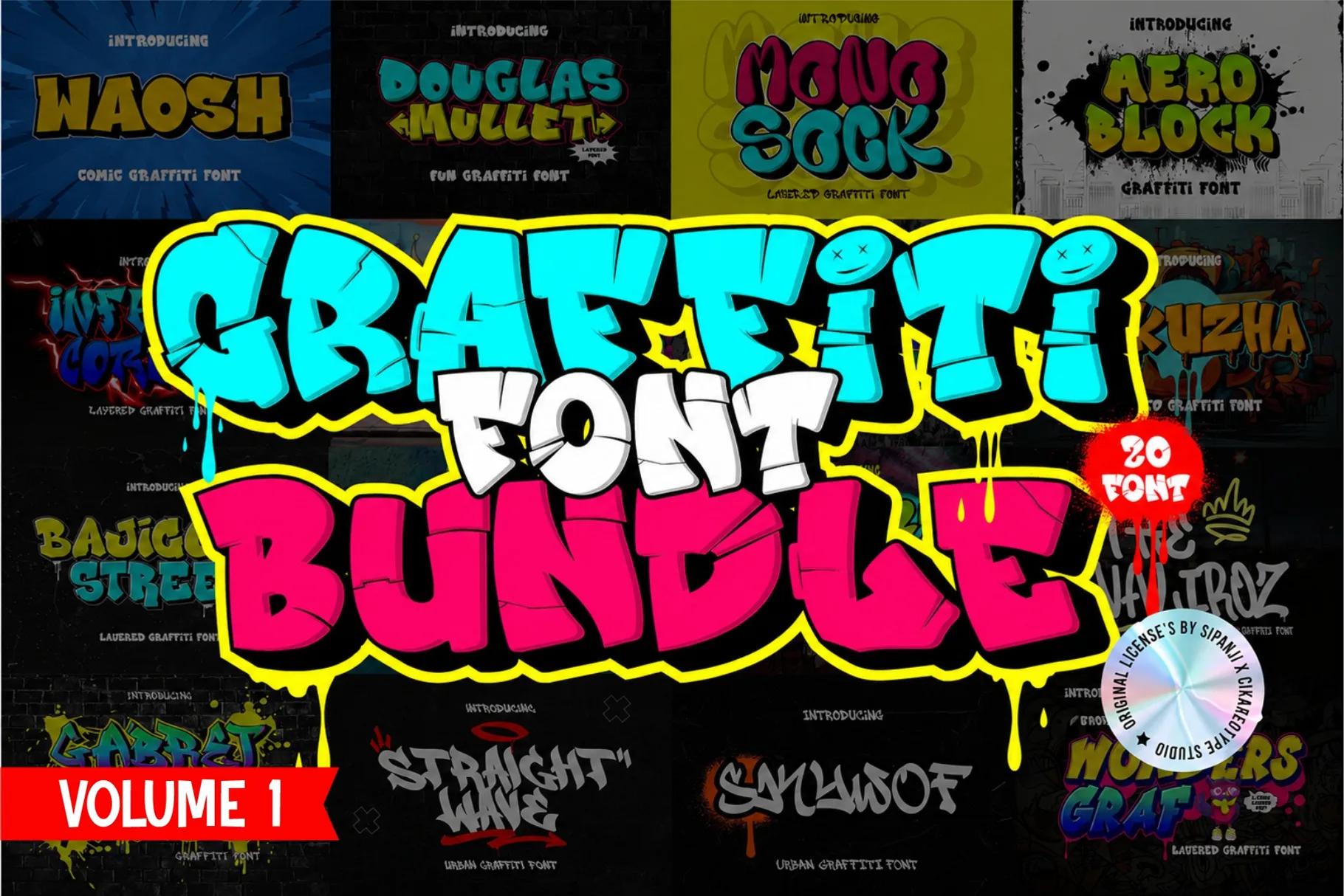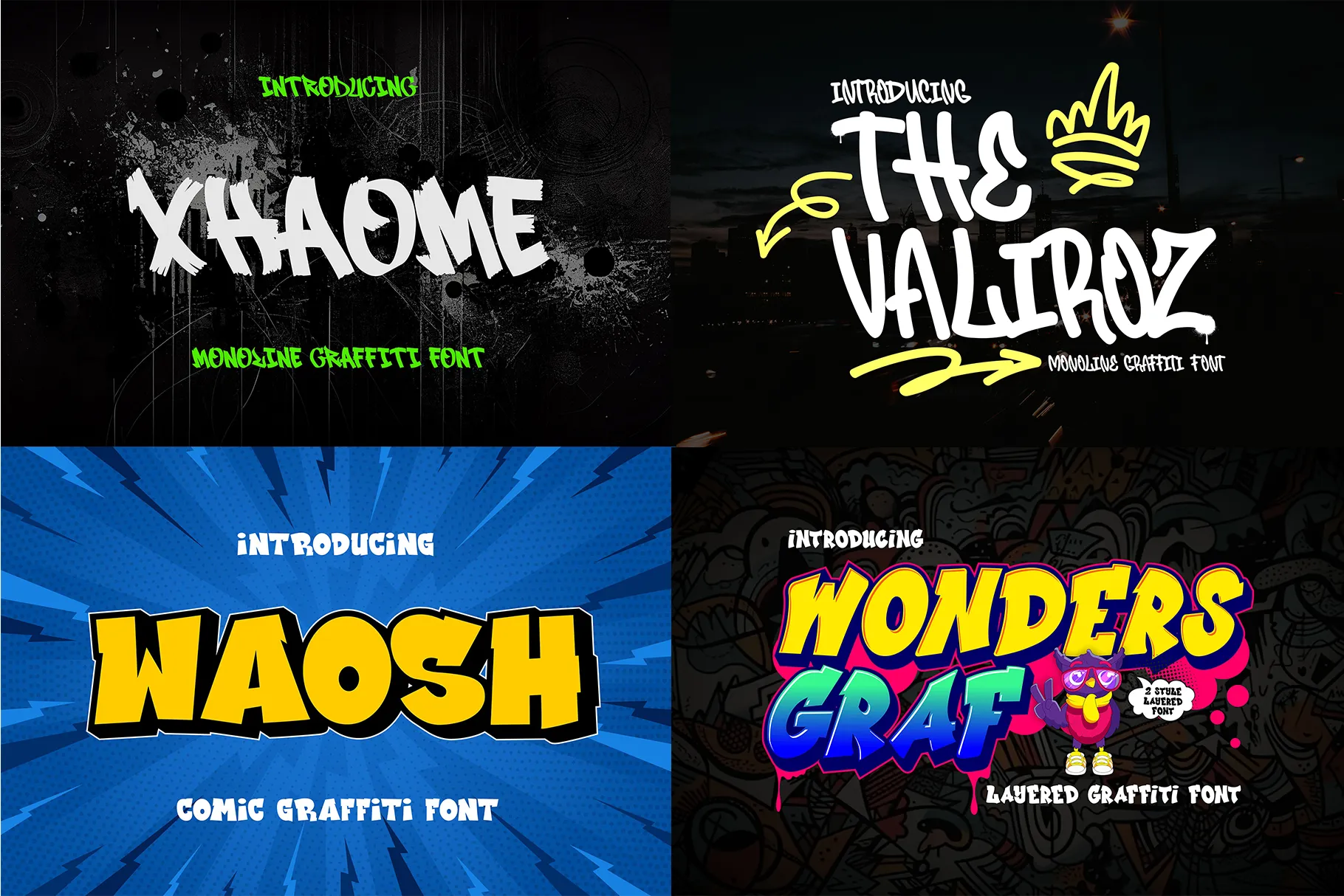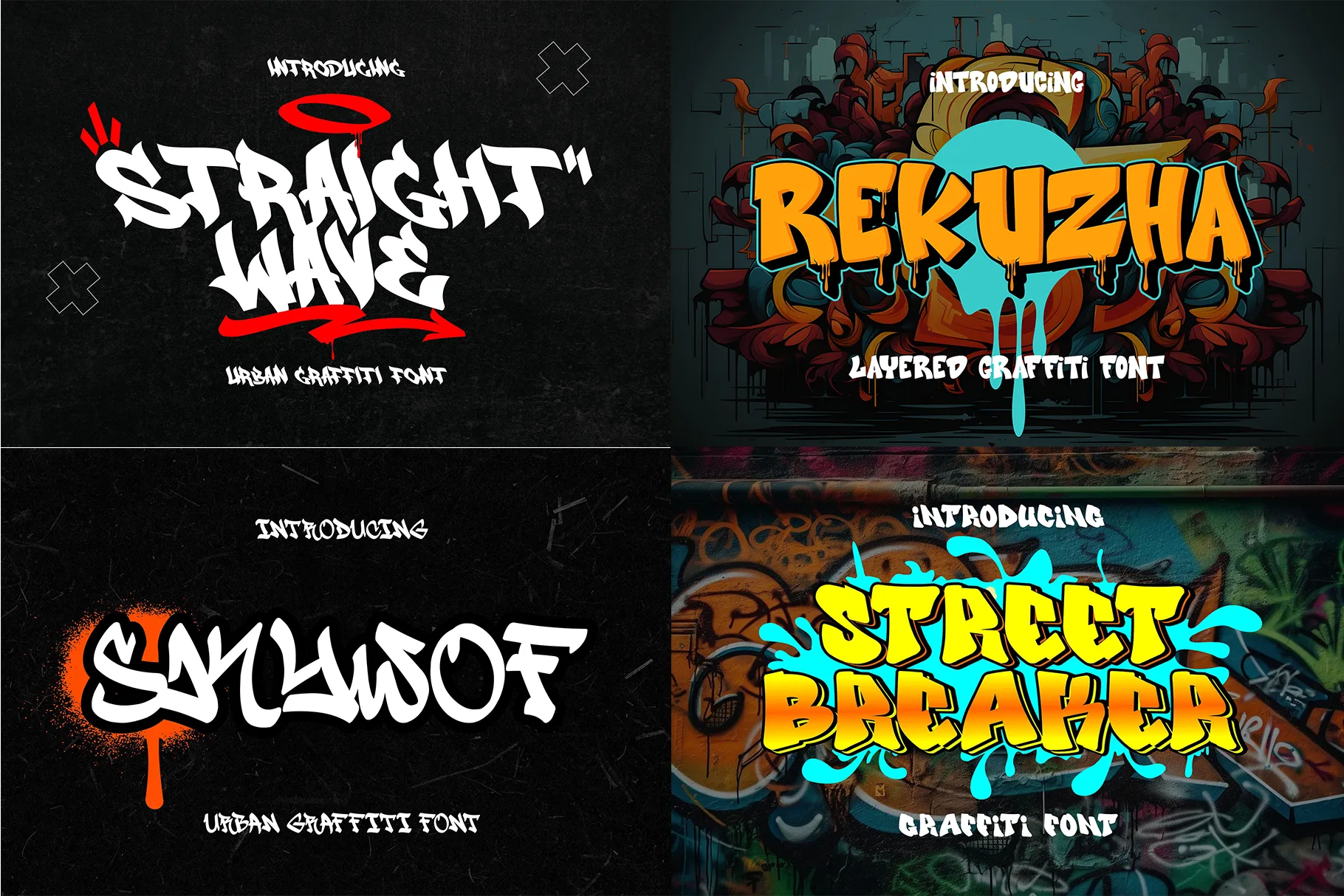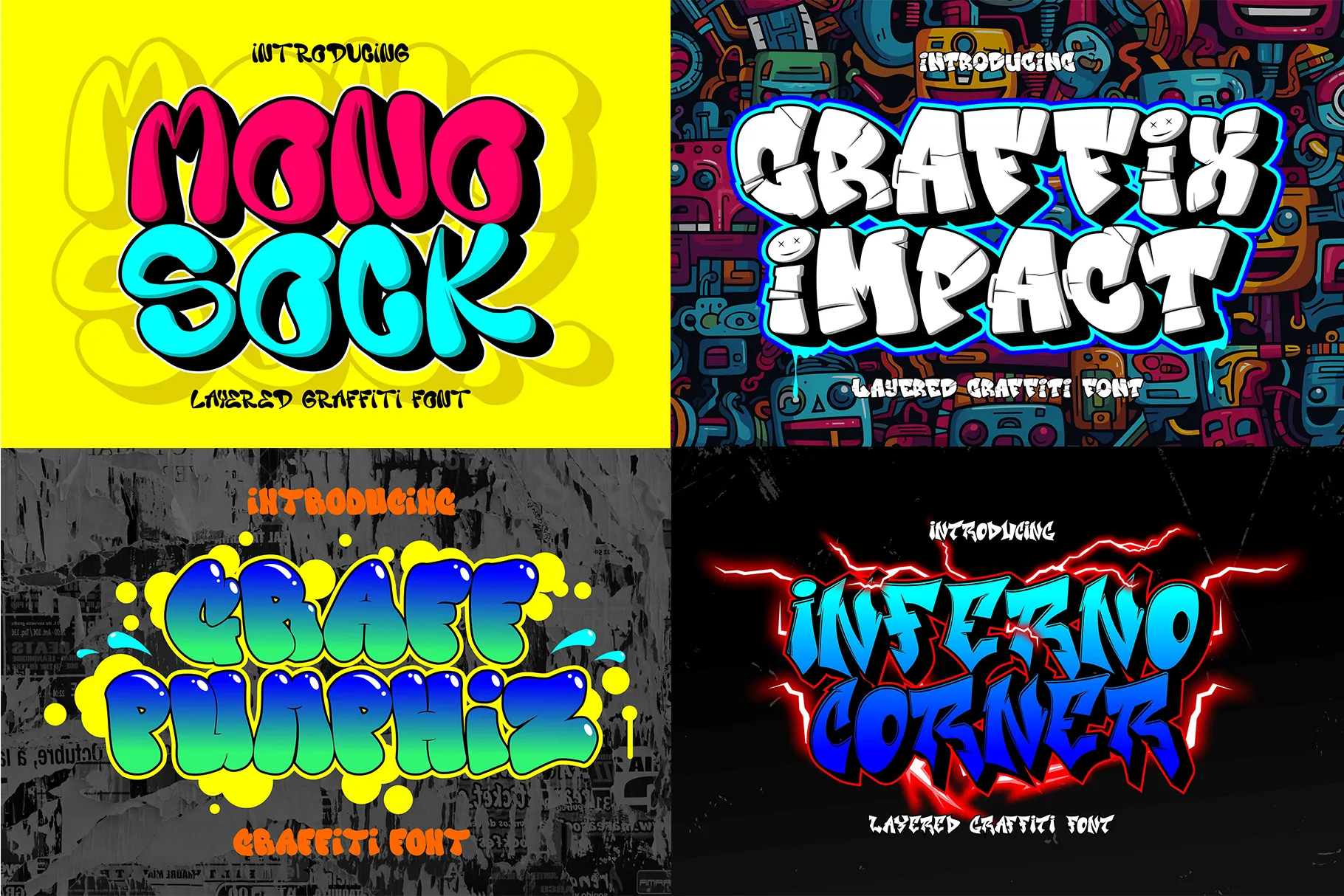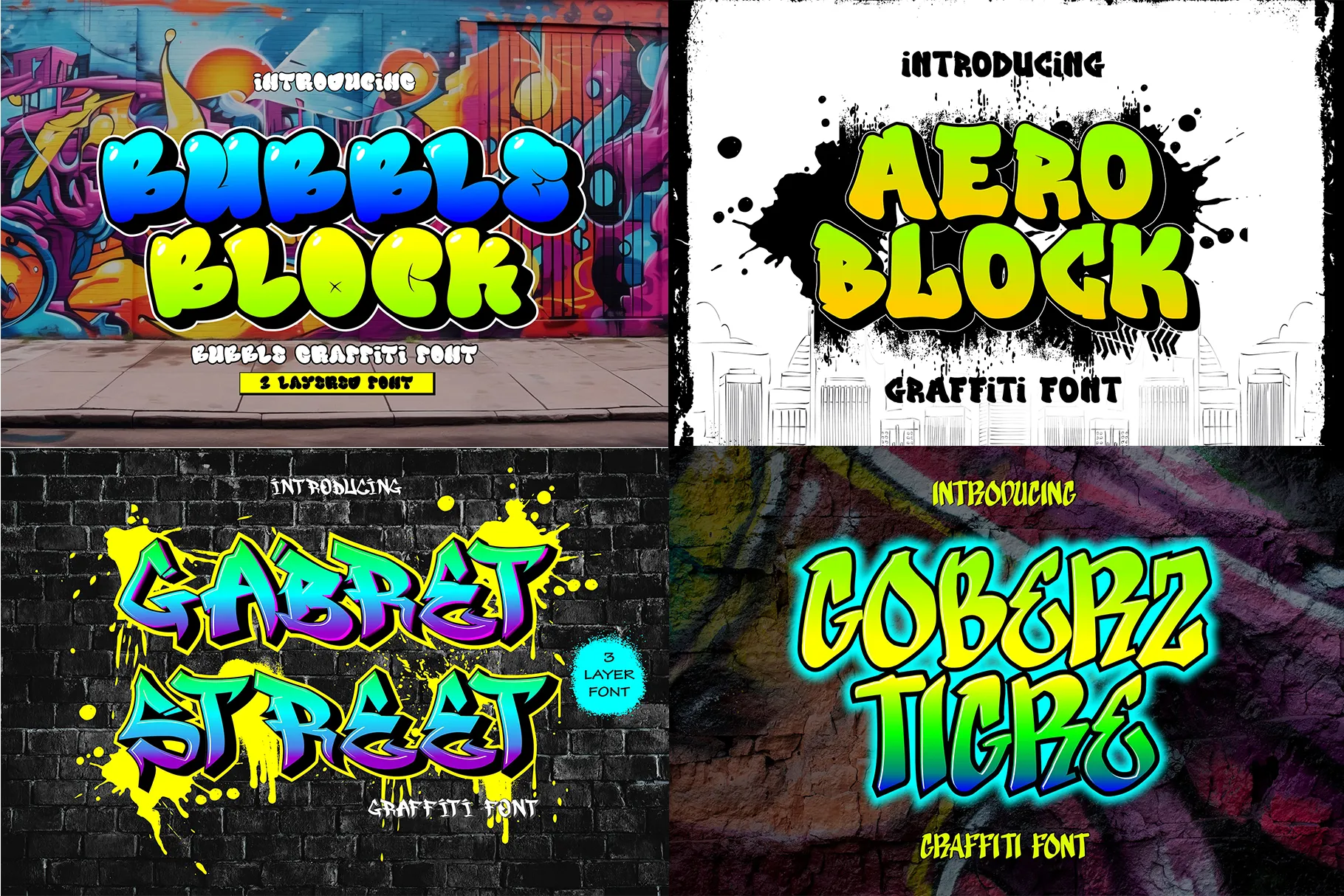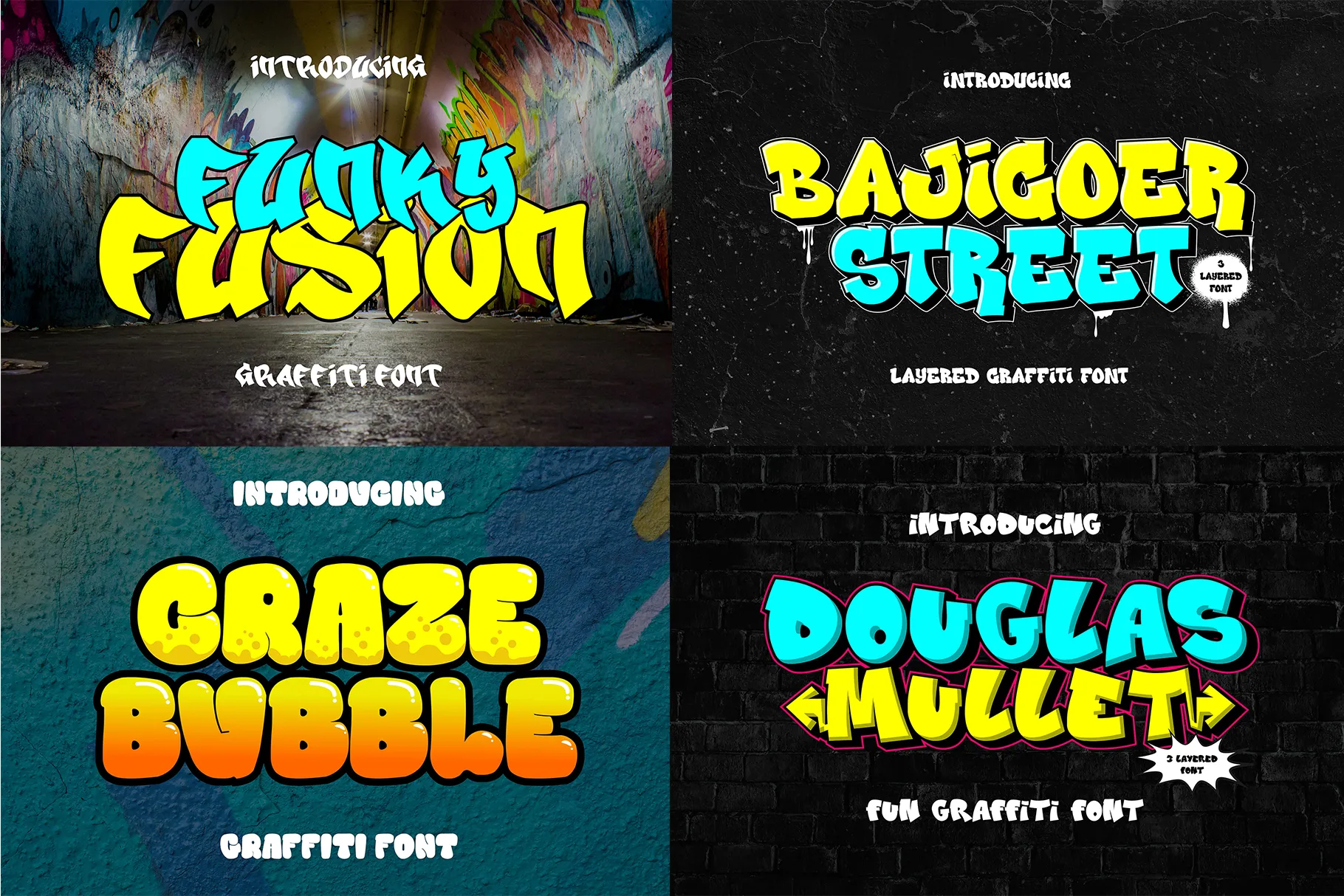
About Graffiti Font Bundle Volume 1
Graffiti Font Bundle Volume 1 – Premium Urban Typography Collection
Take your creative projects to the next level with Graffiti Font Bundle Volume 1, a powerful collection of bold, expressive, and versatile graffiti fonts created for modern designers. This graffiti font bundle brings together a wide variety of urban lettering styles, from aggressive street typography and bold display fonts to playful bubble lettering and dynamic graffiti-inspired designs. Whether you are working on branding, apparel, posters, logos, or social media graphics, this urban font bundle gives you an extensive collection of professional fonts in one powerful package.
Designed for creators who love street culture and expressive typography, Graffiti Font Bundle Volume 1 is a must-have graffiti font collection for designers, illustrators, apparel creators, and branding professionals. Each font brings its own visual personality, allowing you to explore multiple styles without purchasing individual fonts separately. With this graffiti font bundle, you can create bold and memorable typography for almost any creative project.
A Complete Graffiti Font Bundle for Creative Designers
This graffiti font bundle is carefully curated to provide a broad selection of urban typography styles. Every graffiti font included in Volume 1 offers a unique approach to street-inspired lettering, helping you build expressive and eye-catching designs. From strong block lettering to energetic hand-drawn forms, this urban font collection gives you the creative flexibility to match the right typography with the right project.
The variety included in this graffiti font bundle makes it perfect for designers who work across different industries. You can use bold graffiti fonts for streetwear graphics, playful fonts for invitations, expressive lettering for inspirational quotes, or powerful display typography for posters and headlines. With so many styles available, Graffiti Font Bundle Volume 1 becomes a valuable addition to any professional font library.
Font Included in Graffiti Font Bundle Volume 1
This graffiti font collection includes a powerful selection of urban and display fonts. The included graffiti fonts are:
- Aeroblock
- Gabret Street
- Goberz Tigre
- Bajigoer Street
- Craze Bubble
- Douglas Mullet
- Funky Fusion
- Graffix Impact
- Inferno Corner
- Monosock
- Rekuzha
- Skywoff
- Street Breaker
- Straight Wave
- The Valirouz
- Waosh
- Xhaome
- Graff Pumphiz
- Wonder Graff
- Straight Wave
Each graffiti font has been designed to bring a different visual character to your typography. Together, these fonts create a versatile urban font bundle suitable for bold branding, creative merchandise, and modern display design.
From logos and apparel to posters, invitations, packaging, and inspirational quotes, Graffiti Font Bundle Volume 1 gives you the freedom to create without limits. Add powerful urban typography to your design library and unlock a new level of creative expression with a graffiti font collection made for modern designers.